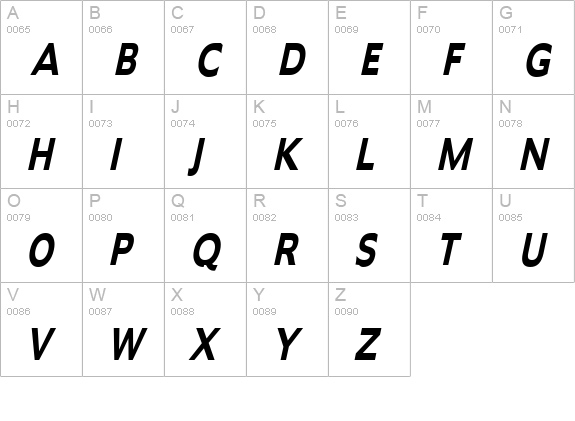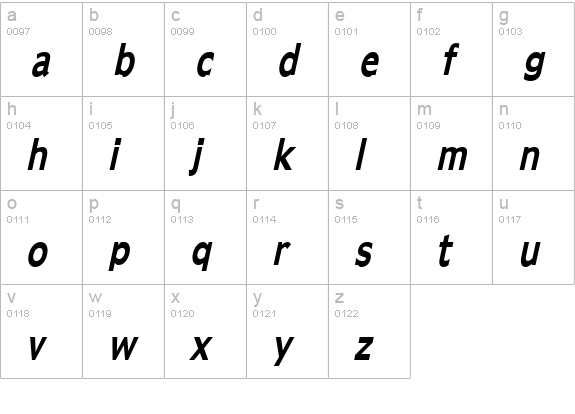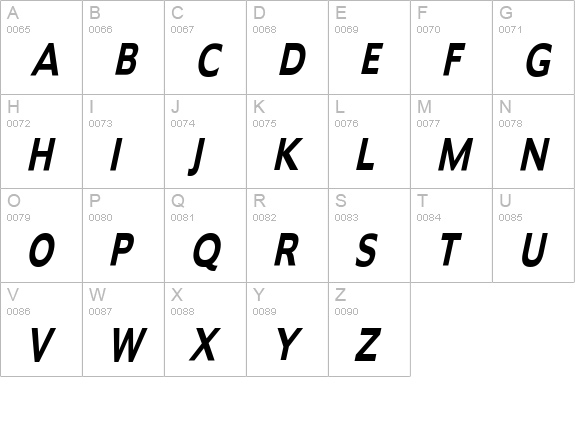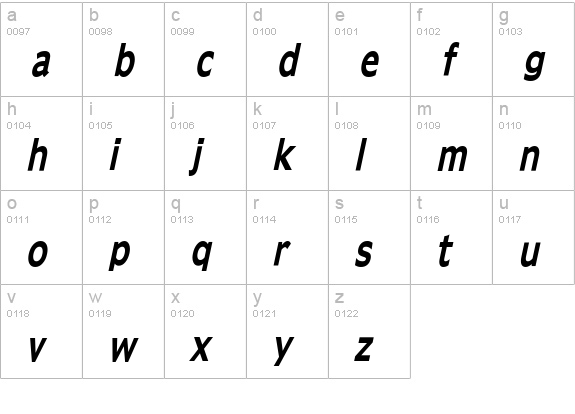
Adams Thin Bold Italic is a delicate, low-contrast, italic variant in the Adams typeface family \xE2\x80\x94 well suited to fashion editorial, minimal branding, and high-contrast display.
Adams Thin Bold Italic font is a stunning and modern typeface that exudes sophistication and elegance. Its sleek lines and bold strokes make it perfect for creating eye-catching designs that demand attention. The unique combination of thinness, boldness, and italics adds a dynamic and stylish flair to any project. What's even better is that Adams Thin Bold Italic font is available for free download at FontsMarket.com. This means you can easily access this versatile and striking typeface to elevate your designs without breaking the bank. Whether you're working on branding, advertising, or any other creative project, Adams Thin Bold Italic font is sure to make a bold statement and leave a lasting impression.